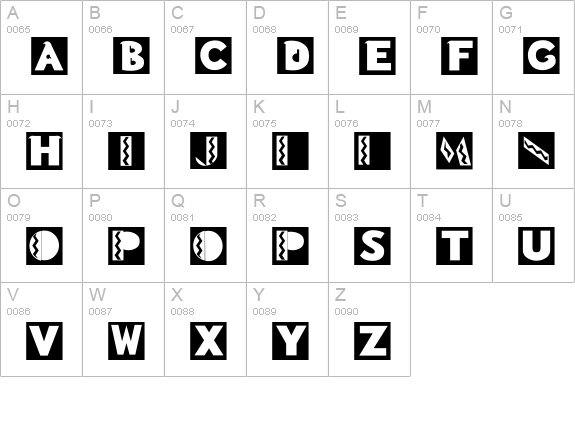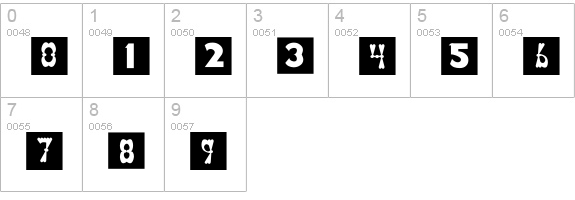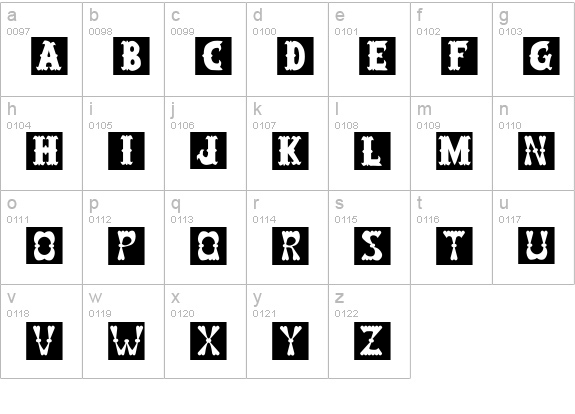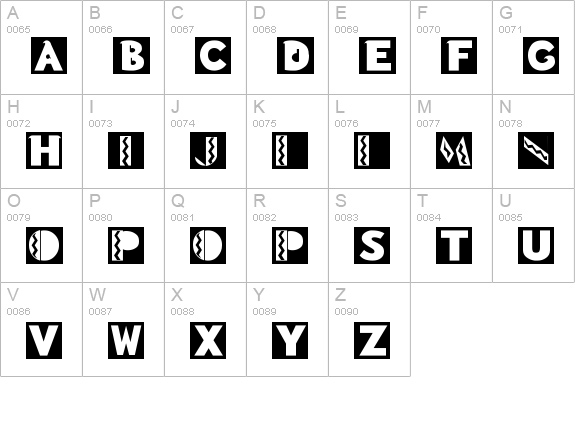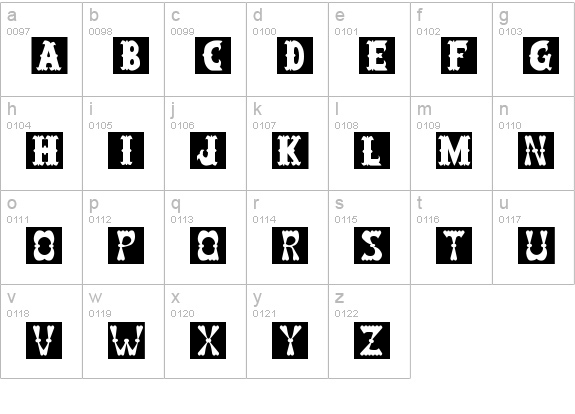
ToyBlock- Font Details
Introducing ToyBlock, a whimsical and playful font that will bring a touch of childlike charm to any project. With its blocky letters and quirky details, this font is perfect for adding a fun and lighthearted vibe to your designs. Whether you're working on a children's book, a birthday invitation, or a playful logo, ToyBlock will instantly catch the eye and make a lasting impression. Its bold and colorful appearance will capture the imagination of young and old alike, making it a versatile choice for a wide range of creative projects. But what makes ToyBlock even more special is that it is available for free! That's right, you can easily download this delightful font at FontsMarket.com, where it is freely available for personal and commercial use. Now you can bring a touch of whimsy to your designs without breaking the bank. With its easy-to-read letterforms and charming design elements, ToyBlock is a font that will make your projects stand out from the crowd. Whether you're a professional designer or a DIY enthusiast, this font is sure to become a favorite in your creative toolbox. So why wait? Download ToyBlock today and let your imagination run wild. Whether you're creating a poster, a website, or a greeting card, this font will add a playful touch that will bring a smile to anyone's face. Don't miss out on this fantastic opportunity to bring a touch of childhood joy to your designs. Get ToyBlock now, exclusively at FontsMarket.com.